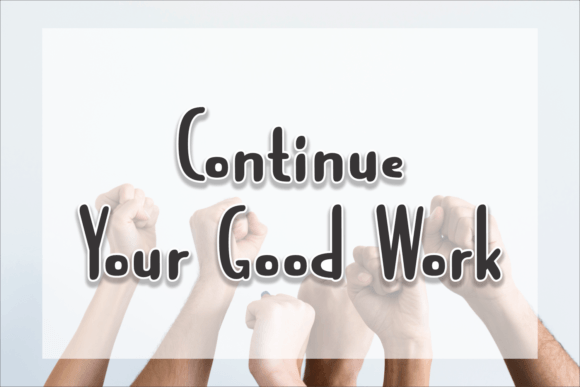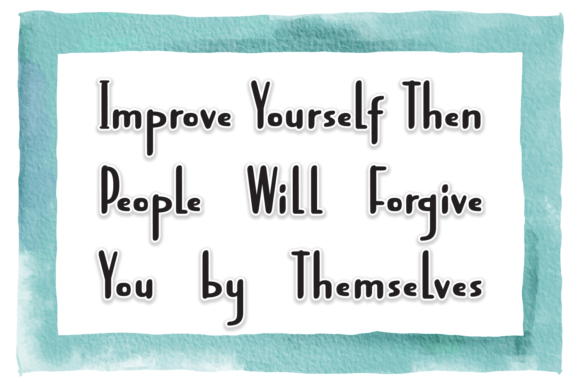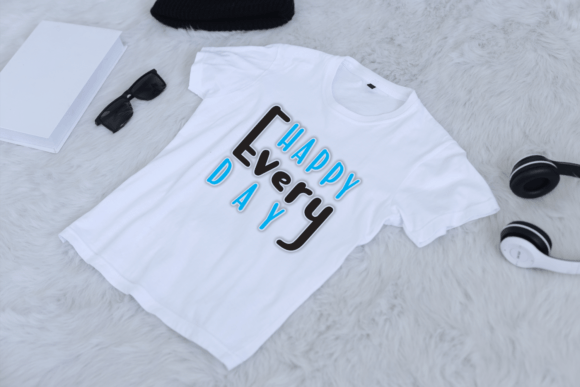
Introduction to Polite Remind Font
Have you ever found yourself rummaging through your stash of design resources, searching for the perfect font to add a touch of elegance to your creative project? I’m sure many designers can relate to this moment of frustration, only to be met with a sea of generic fonts that fail to evoke the desired emotion. But what if I told you there’s a font that can change all that? Meet the Polite Remind Font, a stunning addition to your design arsenal that’s sure to make your creative projects stand out.
This charming font is perfect for designers looking to add a handwritten touch to their designs, from wedding invitations and thank you cards to logos and business cards. With its elegant and refined feel, the Polite Remind Font is a valuable resource for any designer looking to elevate their work.
Key Features of Polite Remind Font
- High-quality design resource with a transparent background, ideal for creative projects.
- Polite Remind Font is available in a single size, making it easy to use in various design contexts.
- Resolution: 300 DPI, ensuring crisp and clear text output in both print and digital applications.
- Unique characteristics: The font features a friendly and approachable tone, making it perfect for reminders, notifications, and other creative projects.
- Comprehensive font family, including uppercase and lowercase letters, numbers, and punctuation marks.
- Perfect for designers and artists looking for a high-quality design resource to enhance their creative projects.
Honest Review: Polite Remind Font
I recently stumbled upon the Polite Remind Font, and I must say, it’s been a great addition to my design resource library. ✨ The font’s elegant and refined style makes it perfect for creative projects that require a touch of sophistication.
Here are some of the things that I like about the Polite Remind Font:
However, there are a few limitations to be aware of:
- Some users may find the font too elegant or refined for certain design projects
- Limited font styles and weights may make it less versatile than other fonts
- Not suitable for projects that require a bold or playful font
Overall, I’m impressed with the Polite Remind Font, and I think it’s a great addition to any designer’s library. With its high-quality design and free download option, it’s definitely worth checking out for your next creative project.
Tips for Getting the Most Out of the Font
Experiment with different font sizes and styles to create visual interest in your design. You can also pair the Polite Remind Font with other fonts to create a unique look.
The Polite Remind Font is perfect for creating engaging social media graphics, promotional materials, and website headers. Its high-quality design makes it an ideal choice for both personal and professional projects.
Alternatives to Polite Remind Font
Comparison to Polite Remind Font: While both fonts are sans-serif, Open Sans is more modern and versatile, making it a great alternative for designers looking for a contemporary feel.
Is the Polite Remind Font suitable for high-quality creative projects?
Yes, the Polite Remind Font is designed to be high-quality and versatile, making it suitable for a wide range of creative projects, from print materials to digital designs. Its clean and elegant design ensures that it will add a professional touch to any project.